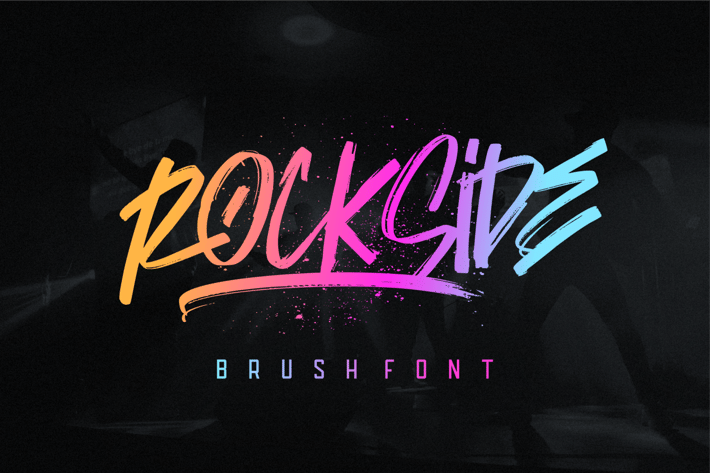
Rockside Brush Font
Introduce the Rockside font with a texture brush designed to give the impression of urban, young, and sloppy. This font is suitable for brands, apparel, clothing, logos and others. This font is also available for swashes.